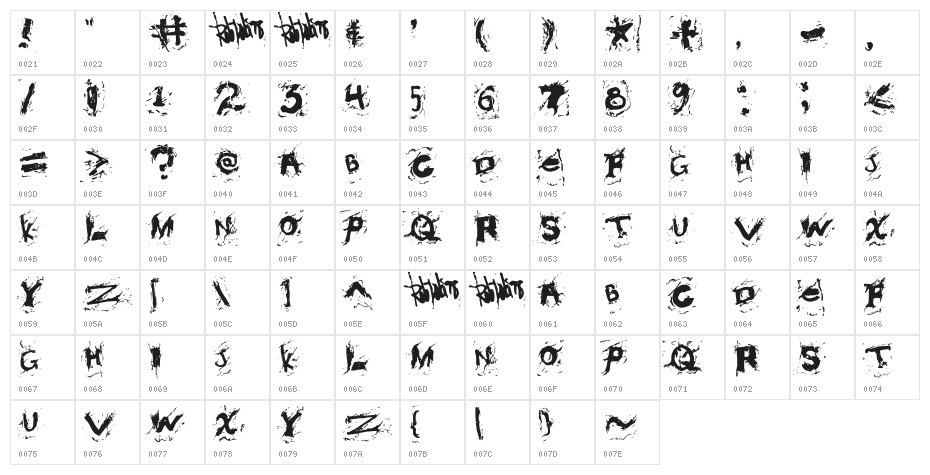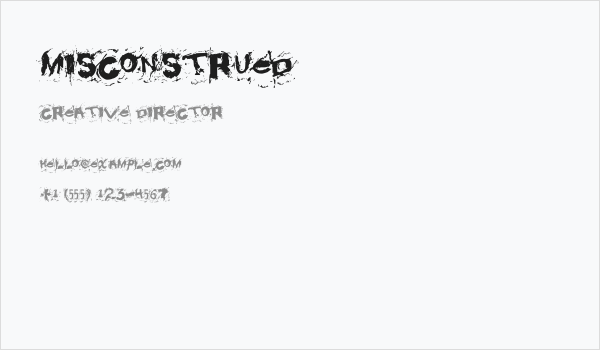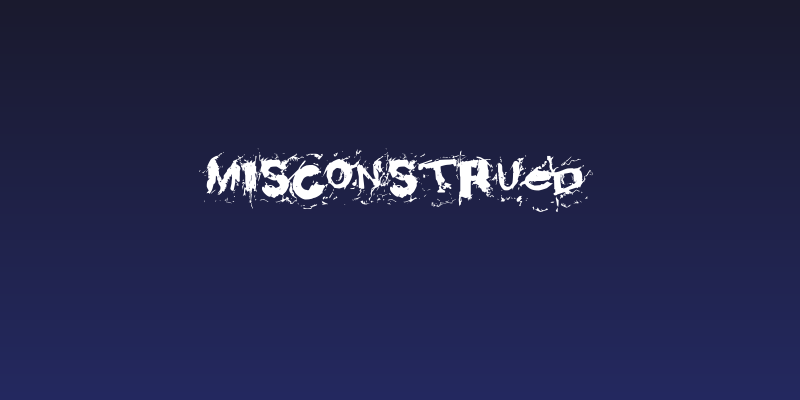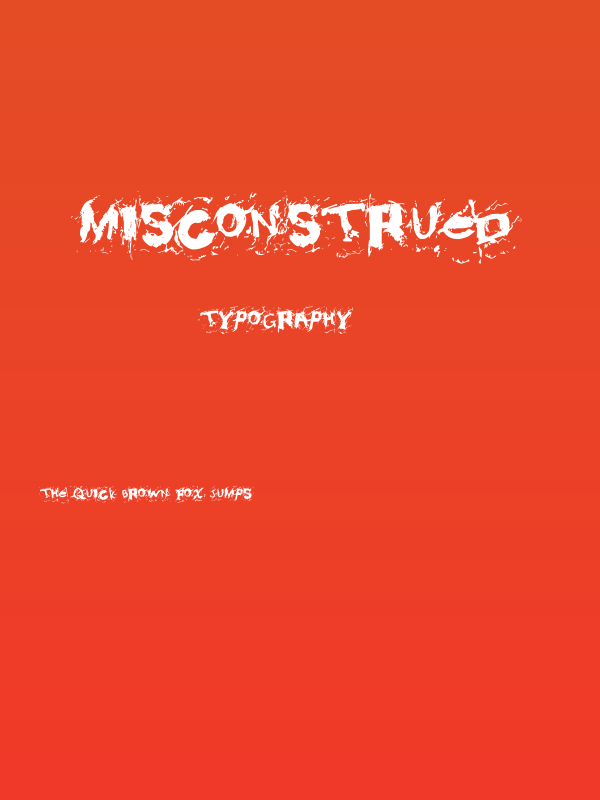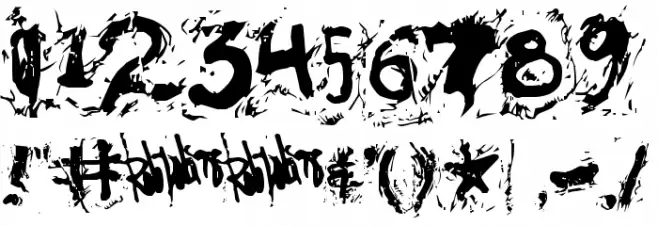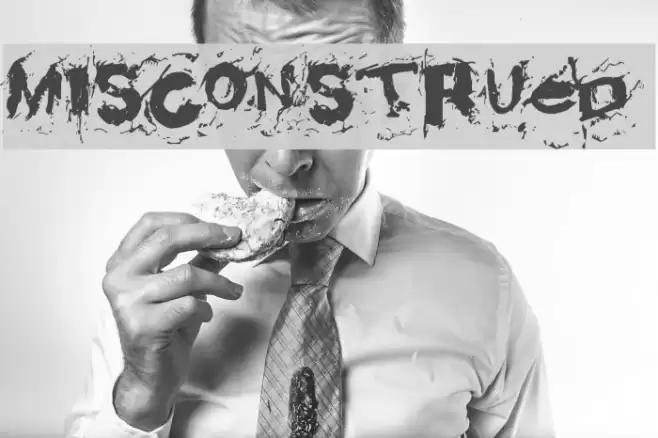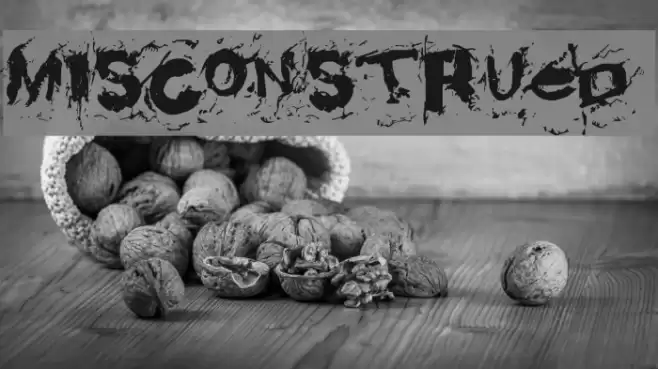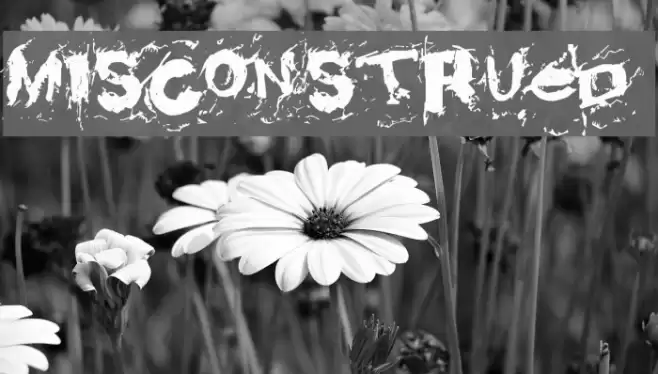
Misconstrued Font
Misconstrued Description
This font features a chaotic and distressed design, with each character appearing as if it has been scratched or eroded. The strokes are uneven and jagged, giving it a raw, grunge aesthetic. The uppercase and lowercase letters maintain a consistent style, with exaggerated serifs and irregular edges. Numbers and special characters follow the same distressed theme, adding to the overall rugged appearance. The font's unique style makes it stand out, ideal for projects that require a bold, unconventional look.
| Overall Style | Grunge, Distressed |
| Use Case | Headlines, Posters, Branding |
| Proposed Projects | Ideal for album covers, horror movie posters, edgy branding, and street art designs. |